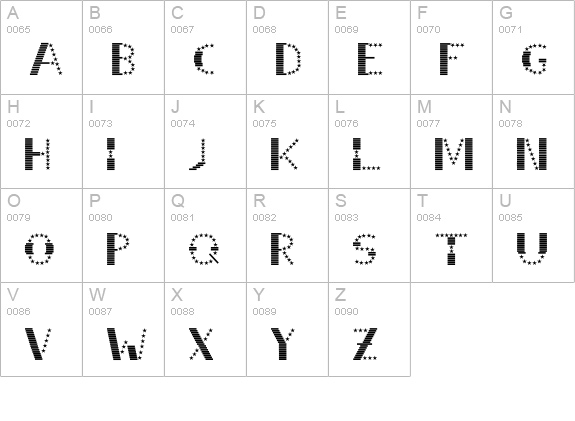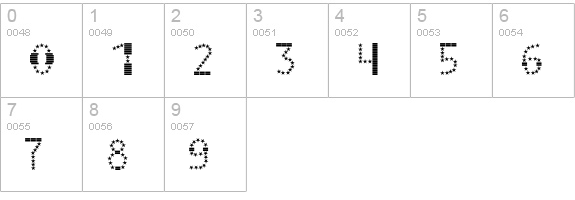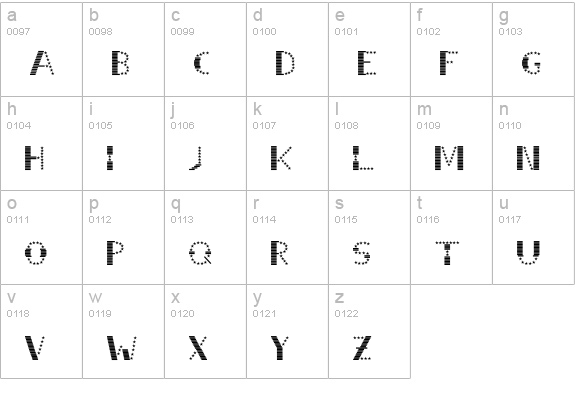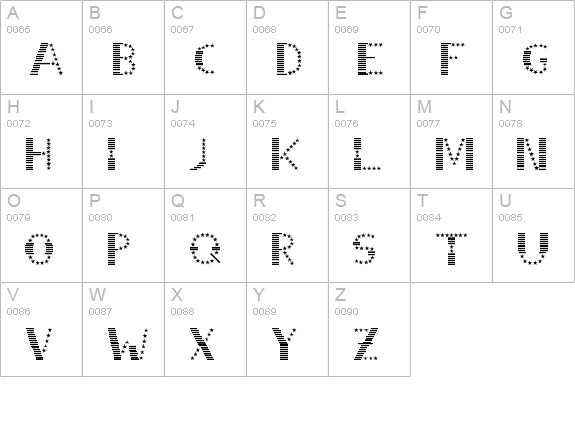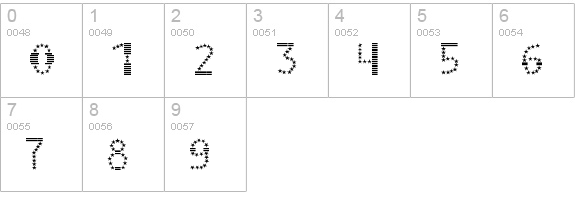
STRIPES & STARS Normal Font Details
STRIPES & STARS Normal is the standard, neutral variant in the STRIPES typeface family \xE2\x80\x94 well suited to general body text, paragraphs, and standard typographic work.
STRIPES & STARS Normal font is a striking and eye-catching typeface that perfectly blends a modern aesthetic with a touch of whimsy. Featuring a unique combination of stripes and stars, this font is ideal for projects that require a bold and energetic look. Whether you're designing posters, flyers, or social media graphics, STRIPES & STARS Normal will add a dynamic element to your work. Its versatile design makes it suitable for a wide range of applications, from branding to editorial design. Best of all, STRIPES & STARS Normal font is available for free download at FontsMarket.com. So go ahead and give your projects a fresh and vibrant look with this exciting typeface!